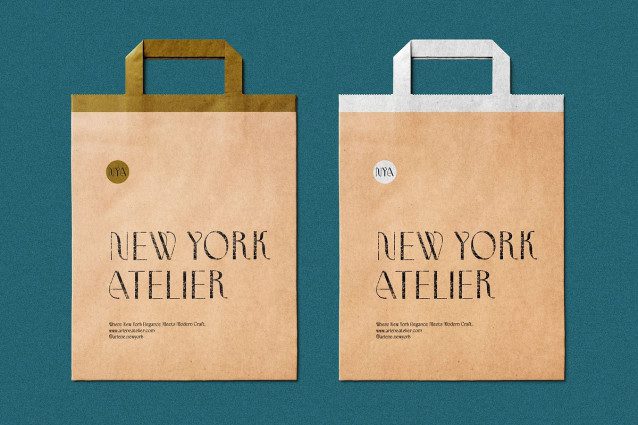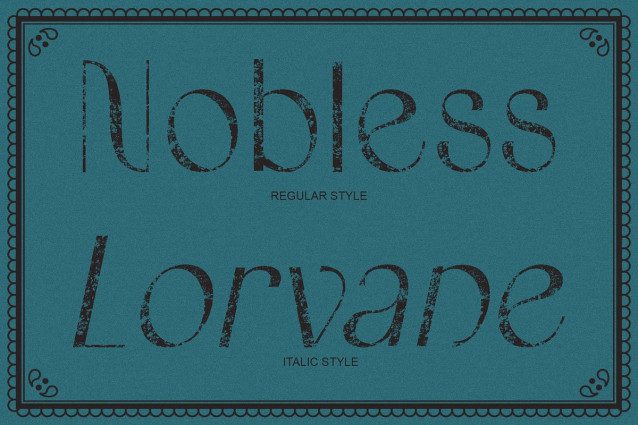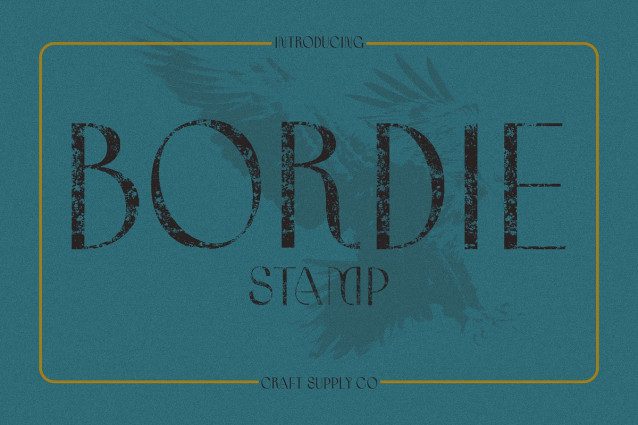
Bordie Stamp Font
Bordie Stamp Font – Elegant Sans Serif with Artistic Vintage Charm Refined Beauty with Organic Curves This is a beautiful sans serif font defined by its organic flowing curves and elegant structure, bringing a sense of refinement and artistry to every letterform. Designed to capture both grace and strength, it’s a perfect choice for projects that seek to balance modern sophistication with timeless beauty.
Vintage Personality Through Stamp Texture The subtle stamp effect enhances this font’s character, adding a handcrafted, vintage touch that evokes nostalgia and warmth. This textured detail transforms the clean sans serif form into something more expressive and tactile ideal for projects that need a personal, authentic feel without sacrificing professionalism.
Perfect for Branding and Retro Design From luxury branding and retro design to editorials and posters, This font adapts effortlessly to diverse creative needs. Its elegant yet grounded nature makes it suitable for designers aiming to convey quality, beauty, and artistry in their visual storytelling. Whether you’re crafting a sophisticated logo or a vintage-inspired headline, this font ensures an unforgettable impression.
A Balance of Sophistication and Creativity This font stands out through its harmonious blend of refinement and expression. The smooth curves create an air of elegance, while the stamp texture adds depth and authenticity. Use it to elevate packaging, fashion campaigns, or editorial layouts with a design language that feels classic, artistic, and beautifully timeless.